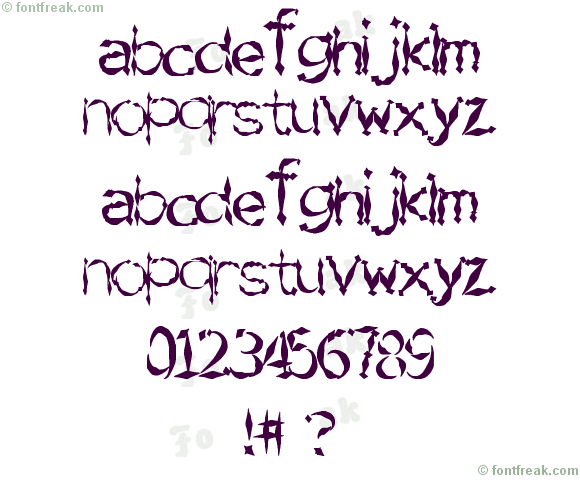
SwordFighting
About SwordFighting
The SwordFighting font by XEROGRAPHER FONTS is a striking display typeface that captures the essence of adventure and action. Released in 2012 as freeware, this font is characterized by its bold, irregular strokes and unique decorative elements that evoke a sense of movement and energy, reminiscent of a thrilling sword duel. The letters exhibit a playful contrast in weight, with certain strokes appearing thick and robust while others taper to delicate points, creating an engaging visual dynamic.
This font works exceptionally well in various creative contexts. It is ideal for movie posters that aim to convey a sense of excitement and drama, making it a perfect choice for action or fantasy films. Additionally, its adventurous flair makes it suitable for themed events, such as renaissance fairs or medieval festivals, and can effectively enhance promotional materials for such occasions. Graphic designers may find the SwordFighting font particularly appealing for designing eye-catching logos or brand identities that require a touch of whimsy and boldness. Small business owners looking to create memorable marketing materials will also appreciate its distinctive character, which can set their brand apart.
What truly sets the SwordFighting font apart is its ability to convey a narrative through typography. Each letter seems to tell a story of its own, inviting viewers to engage and explore. This makes it an excellent choice for anyone looking to make a bold statement through their designs.